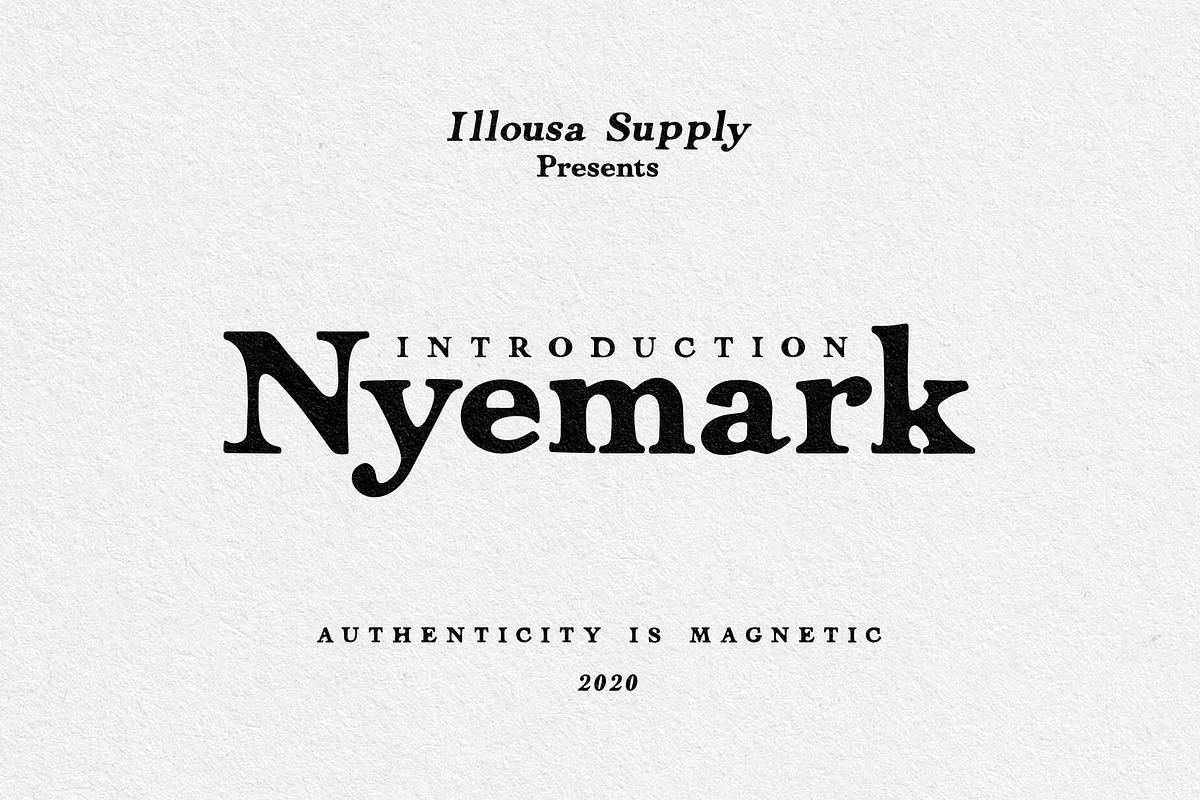
Nyemark Serif Typeface Font is perfect for luxury magazine layouts, academic journal publications, high-end book publishing, sophisticated branding materials, premium wine labels, elegant wedding invitations, corporate annual reports, fine art gallery catalogs, upscale restaurant menus, and distinguished law firm documentation.
What makes Nyemark Serif Typeface Font so exciting is its masterful balance of classical elegance with contemporary refinement, creating letterforms that exude sophistication and intellectual authority through every carefully crafted serif and graceful curve. This font captures the essence of timeless scholarship and premium quality, featuring distinguished characters that command respect while maintaining exceptional readability. The refined letter shapes create an atmosphere of trust, expertise, and cultural sophistication, making every word feel like it belongs in the finest literary works and most prestigious publications.
The Nyemark Serif Typeface Font family includes Thin, Light, Regular, Medium, Bold, and Black weights, along with corresponding italic variations and small caps. Each style maintains the font's distinctive scholarly character while offering versatility for different editorial applications, from body text that flows with effortless readability to commanding headlines that establish immediate credibility.
This distinguished typeface brings timeless elegance to modern publishing projects. The Nyemark Serif Typeface Font Free Download offers designers an exceptional resource for creating memorable editorial experiences that resonate with discerning audiences. Whether you're developing academic publications, designing luxury brand materials, or creating prestigious corporate communications, this font delivers unmatched sophistication and professional authority.
The meticulously crafted letterforms in Nyemark Serif Typeface Font feature traditional serif structures enhanced with subtle contemporary refinements that ensure optimal performance across both print and digital media. Each character demonstrates perfect optical balance, creating harmonious text blocks that invite extended reading while maintaining visual distinction. The font's classical foundation makes it particularly effective for projects requiring established credibility and intellectual gravitas.
Publishing professionals appreciate how Nyemark Serif Typeface Font effortlessly communicates expertise, tradition, and premium quality while adapting seamlessly to modern design requirements. The comprehensive glyph set includes academic symbols, specialized punctuation, ligatures, and extensive international language support, ensuring global compatibility while preserving its distinctive scholarly identity. This makes it an essential resource for publishers, academic institutions, luxury brands, and any organization seeking typography that embodies the highest standards of intellectual distinction and cultural refinement.